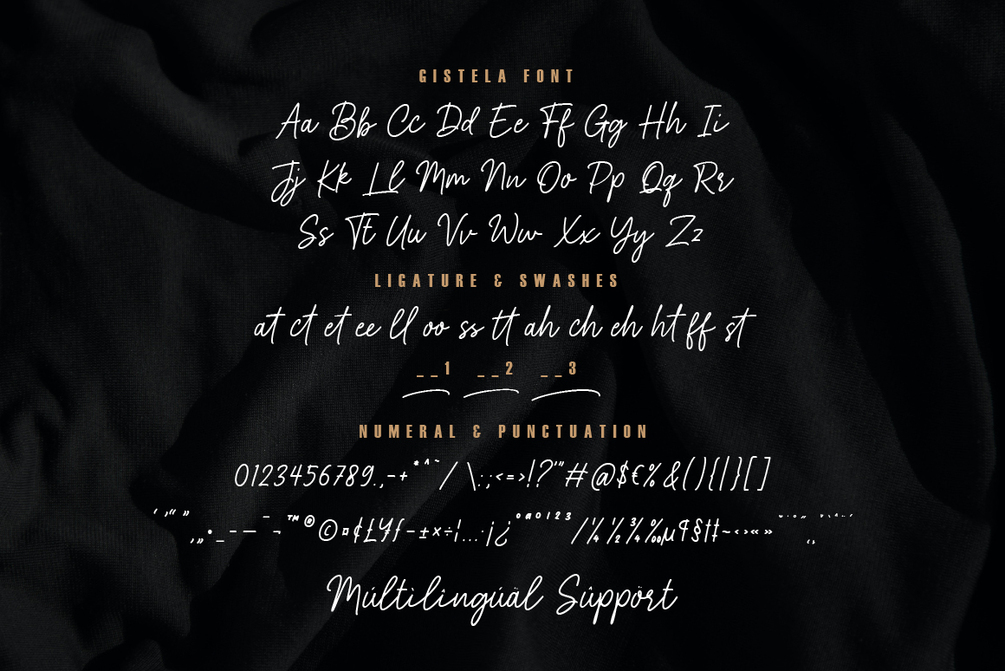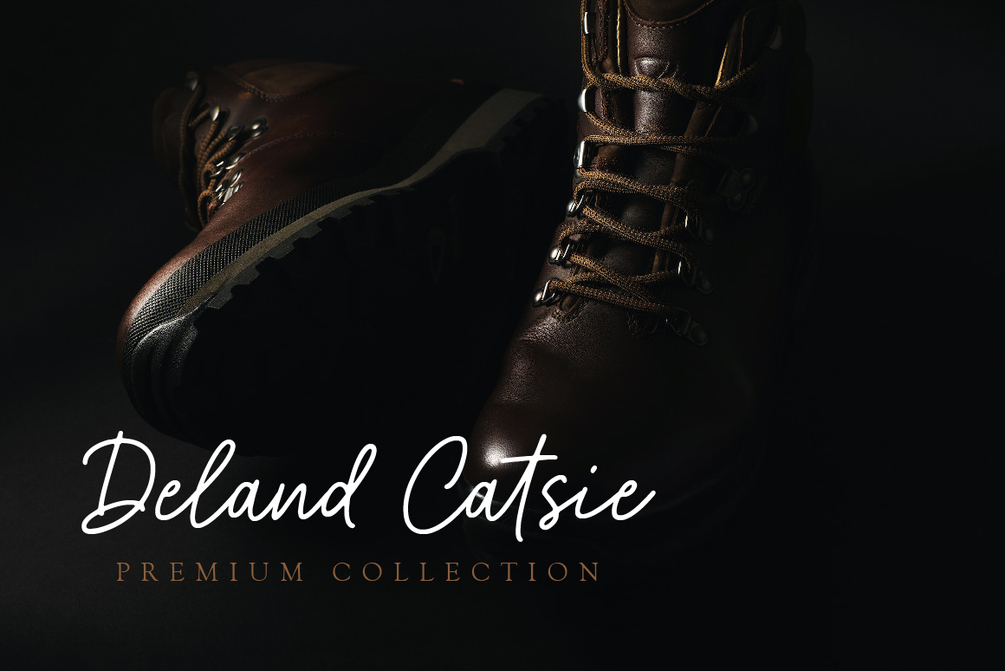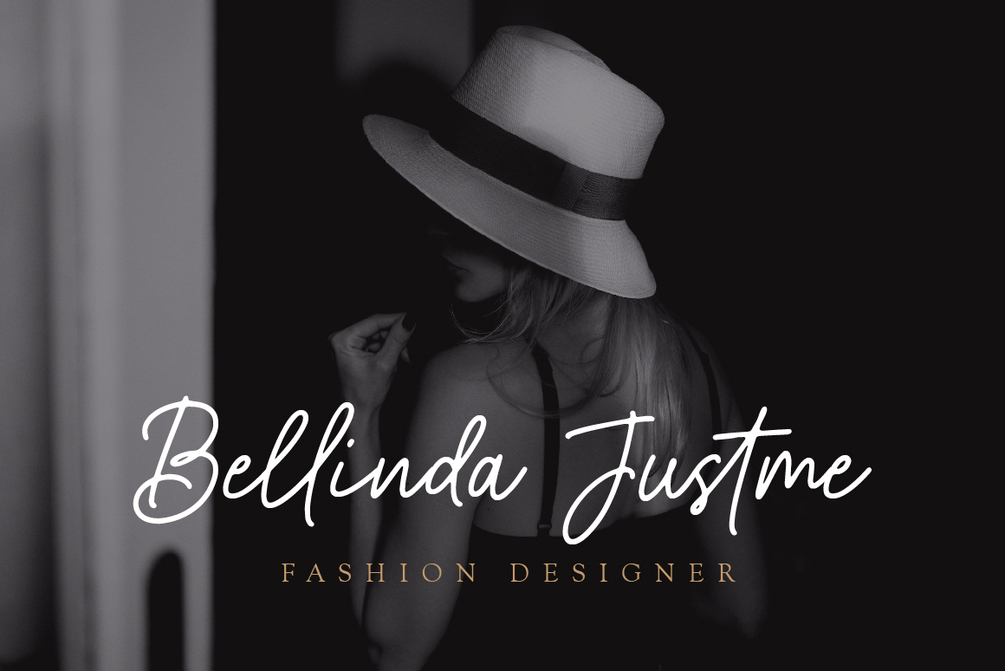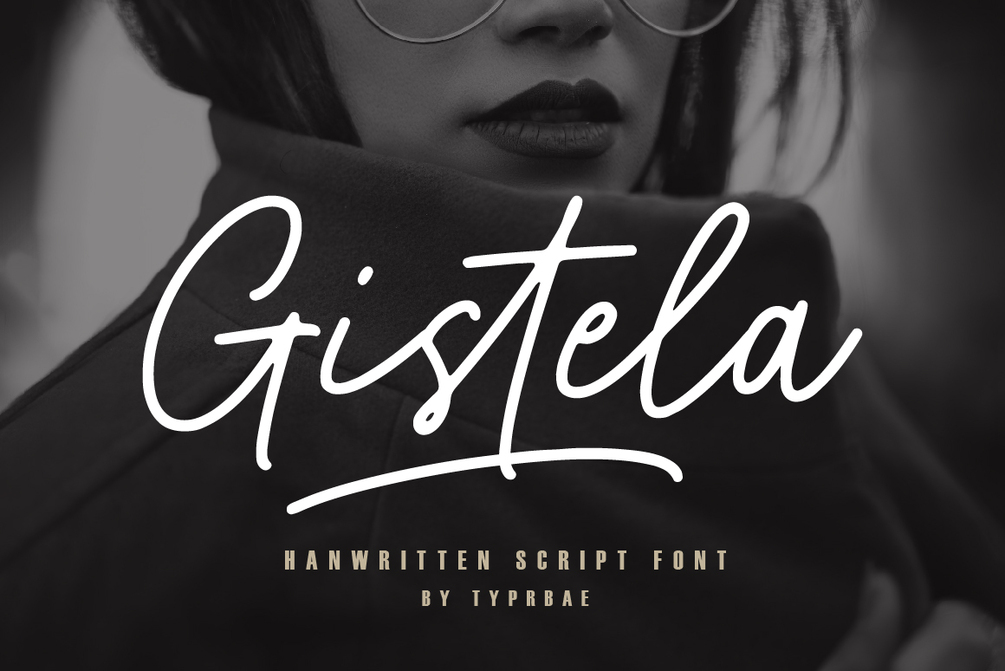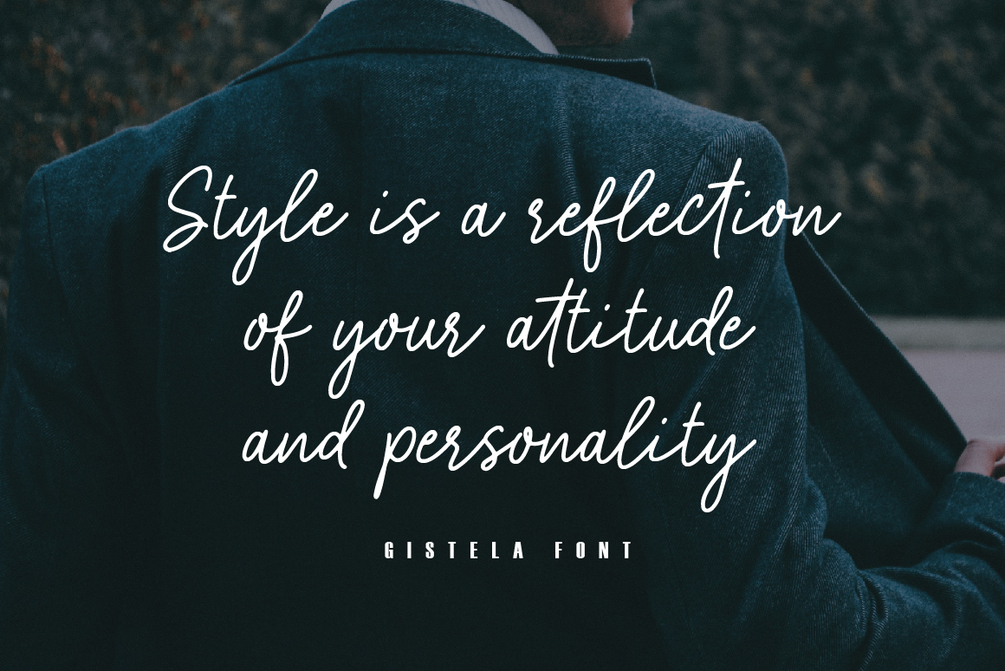
Gistela
Gistela is a stunning handwritten signature script font that exudes beauty and elegance. Gistela is perfect for creating luxurious branding materials, wedding invitations, greeting cards, and other projects that demand a touch of refined beauty.
• Full alphabet and punctuation
• Ligature feature
• Multilingual Support: Afrikaans, Basque, Breton, Catalan, Danish, Dutch, English, Finnish, French, Gaelic (Irish, Scots), German, Icelandic, Indonesian, Irish, Italian, Norwegian, Portuguese, Saami (Southern), Spanish, Swahili, Swedish. Enjoy our fonts, and if you have any questions, feel free to contact us.